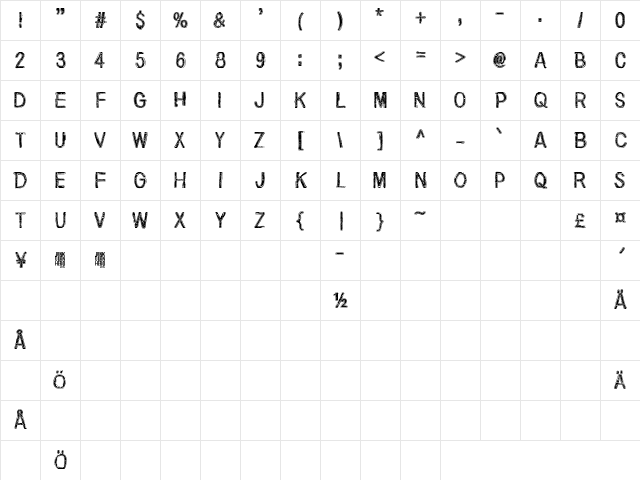
Nirepnirun oivuk Regular Free Font
Nirepnirun oivuk Regular
Design Context for Nirepnirun oivuk
Nirepnirun oivuk is a composed and adaptable typeface that performs quietly and consistently across a wide range of design contexts.
Pro Tip: Use Nirepnirun oivuk in both headline and body roles to test its range before committing to a single application.